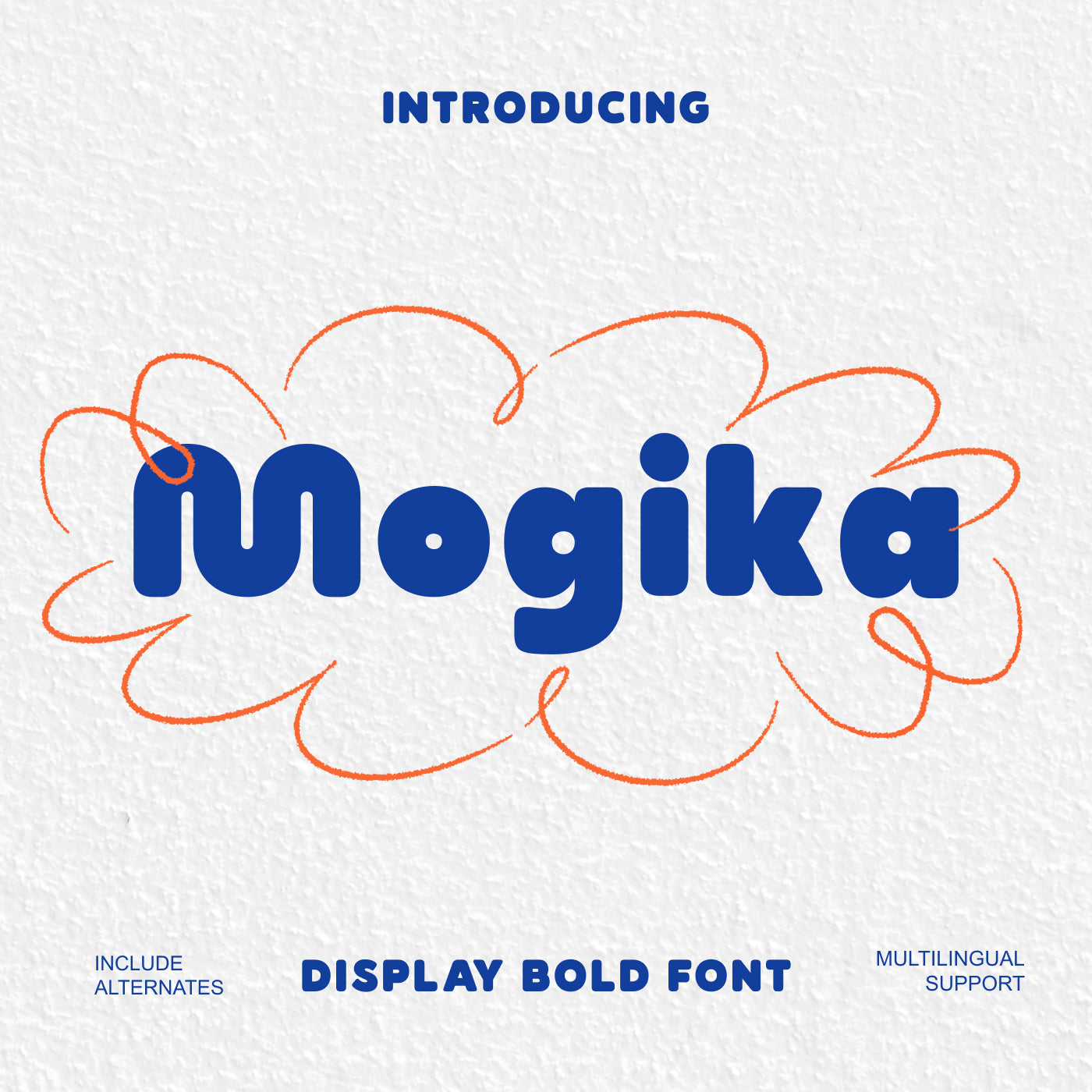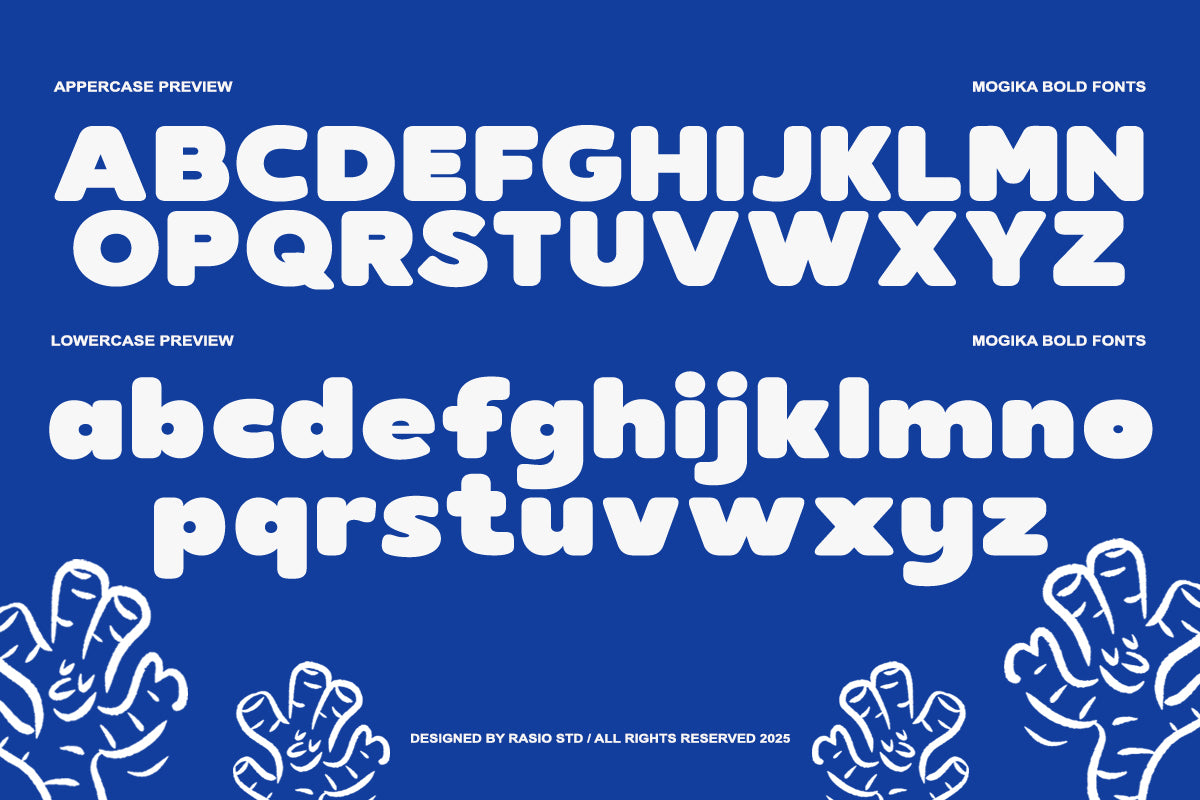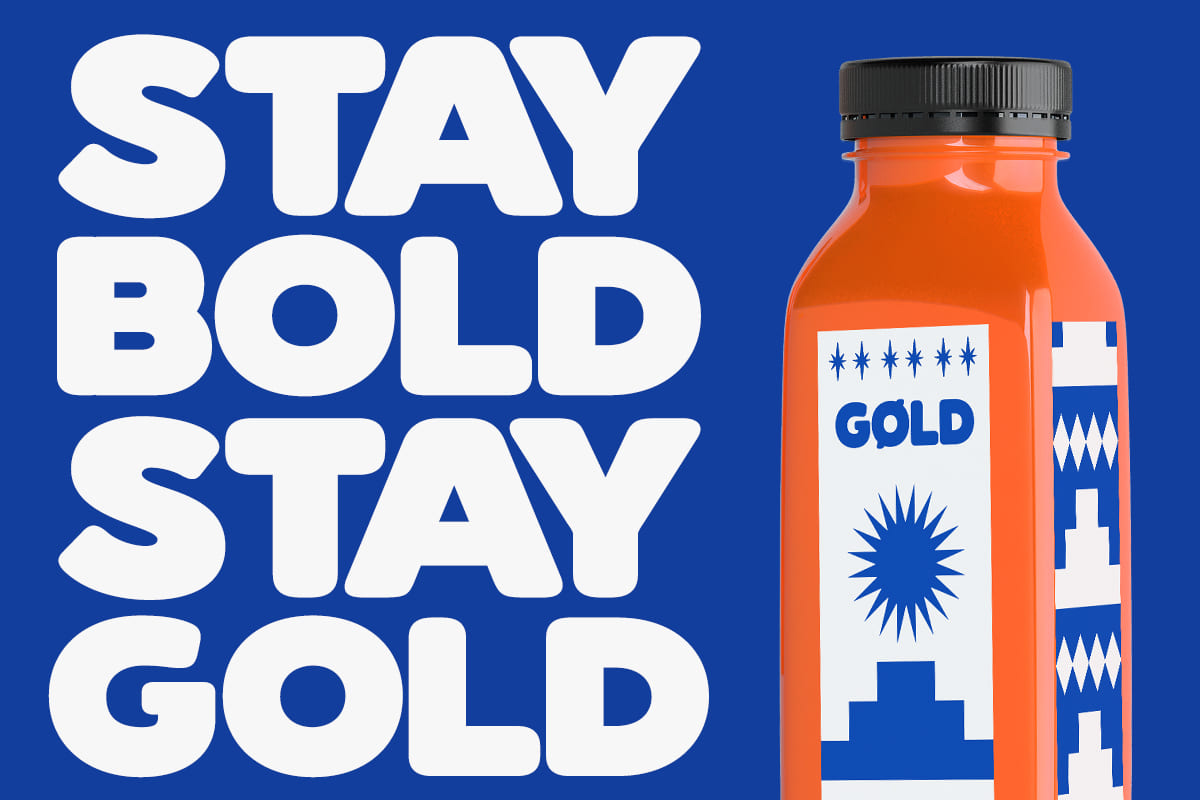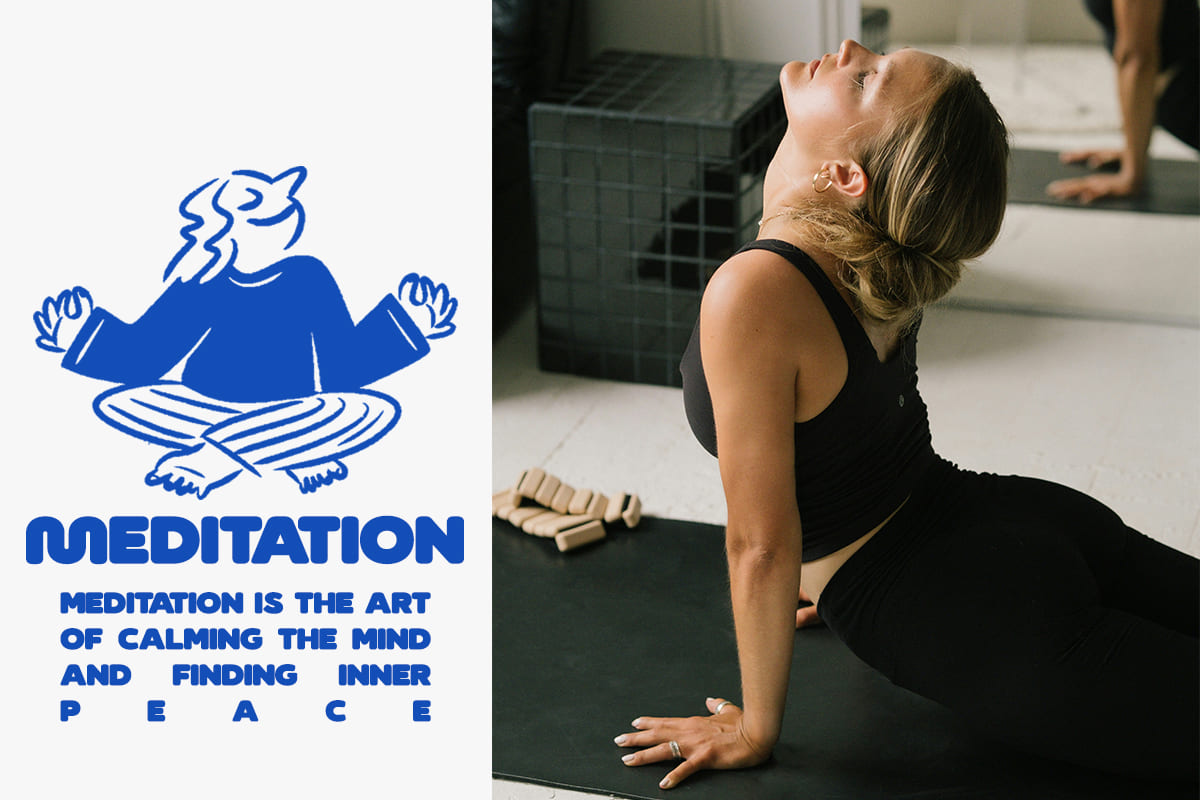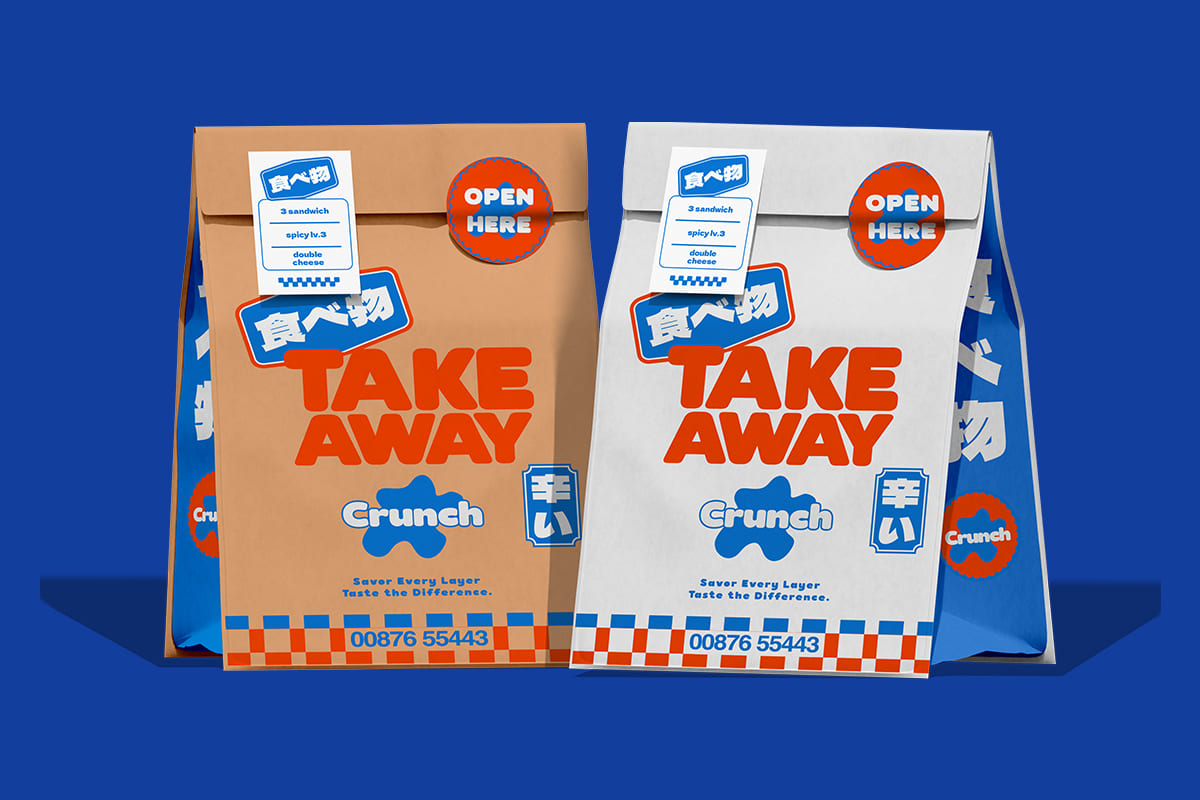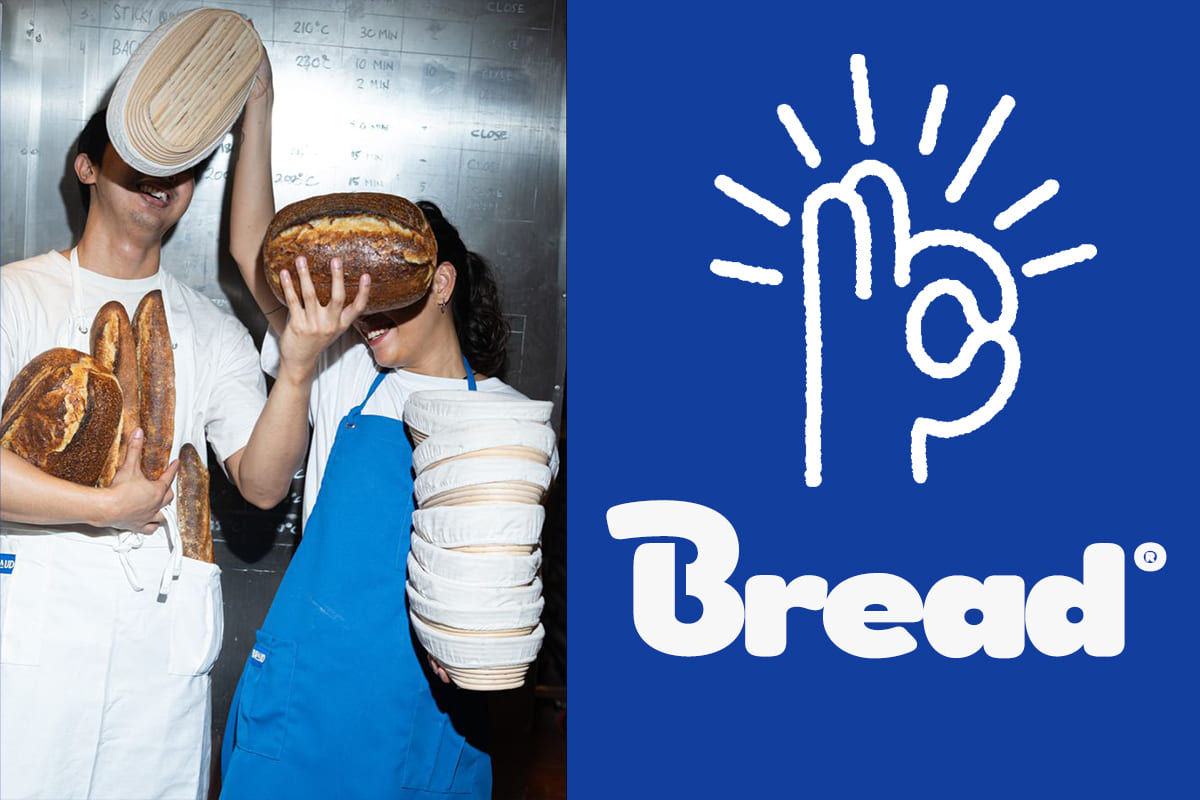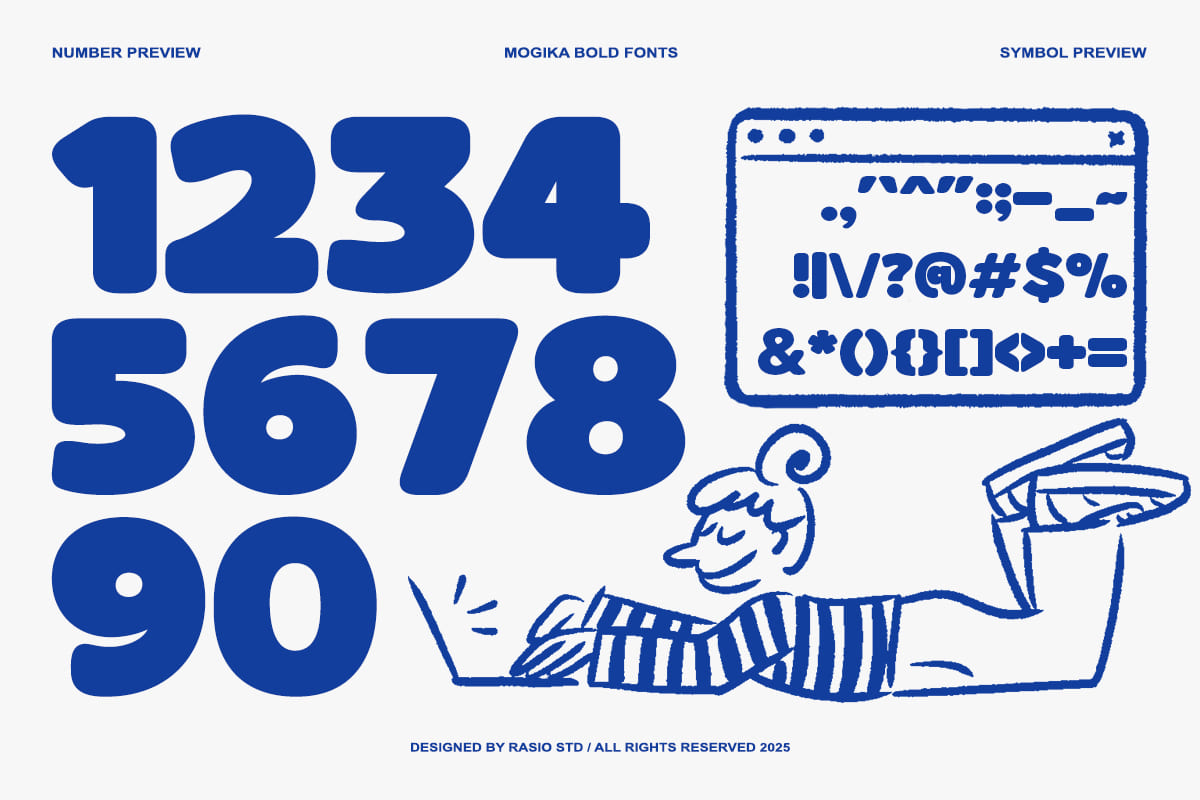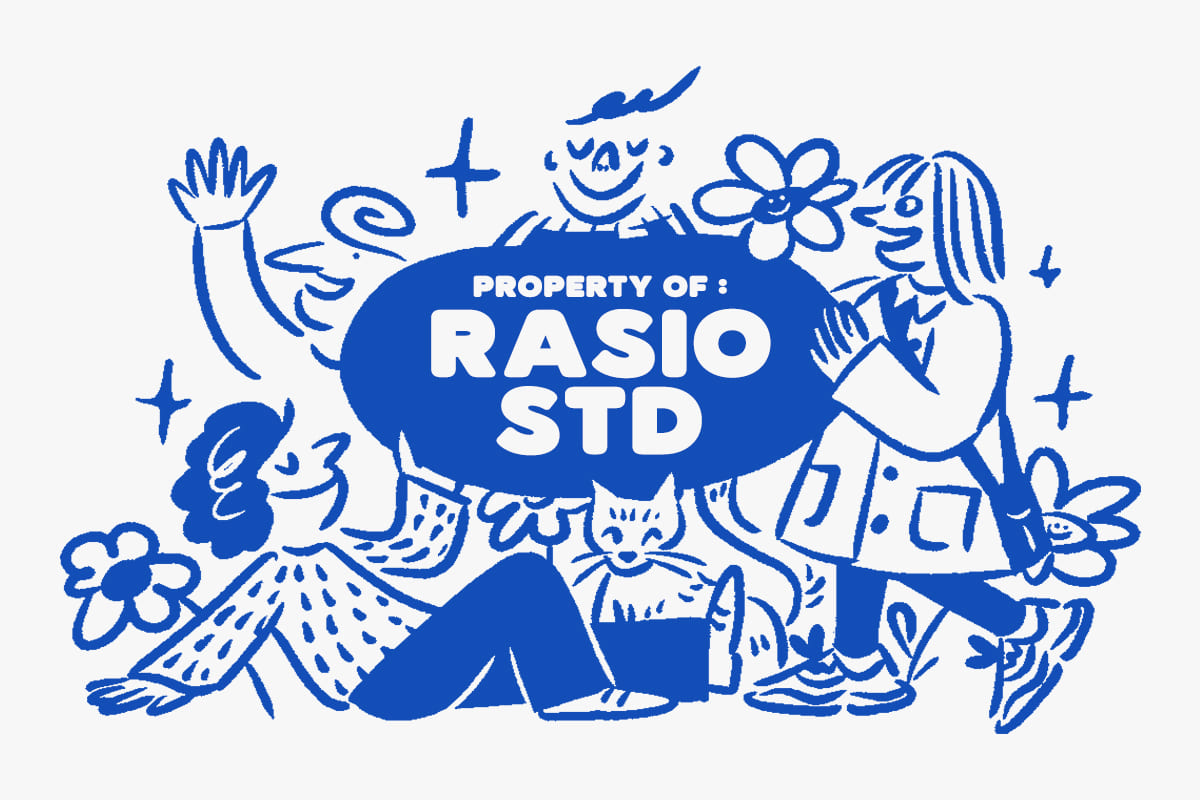
Mogika Display Bold Font
Mogika Rounded Bold Display Font is a cheerful and confident typeface featuring thick rounded letterforms and smooth geometric construction. Its soft edges and solid shapes deliver a sense of warmth and playfulness while maintaining modern readability. The bold weight makes it stand out for logos, headlines, and creative titles. Designed to express fun and energy, Mogika fits perfectly into playful branding, children’s packaging, and eye-catching promotional visuals.
Relevance and Use Cases is perfect for playful branding, food packaging, kids’ products, fun posters, cartoon titles, creative advertising, and any design that seeks a bold and approachable personality.
Mogika Display Bold Font is a rounded bold typeface with thick letterforms and geometric construction, including uppercase and lowercase characters, numerals, and punctuation. It is available in TTF, OTF, and WOFF formats.